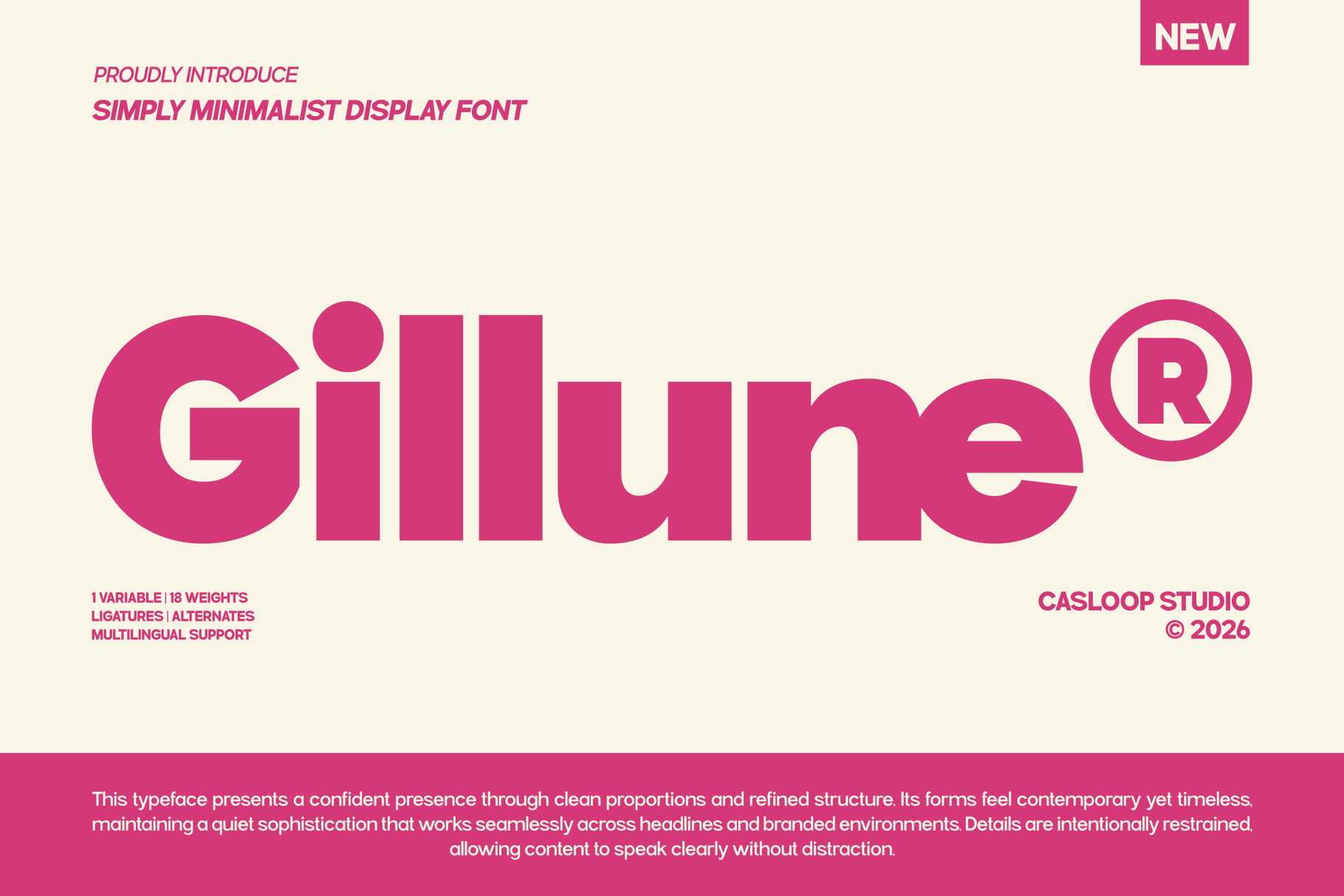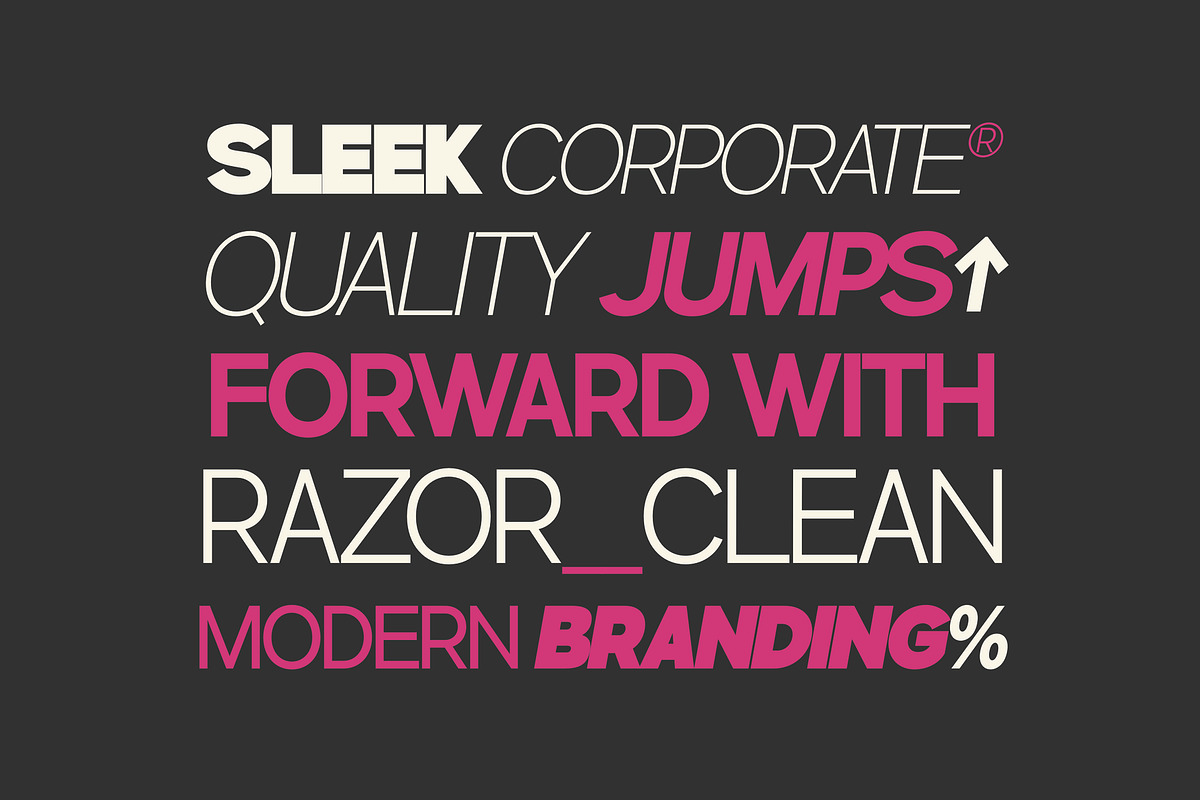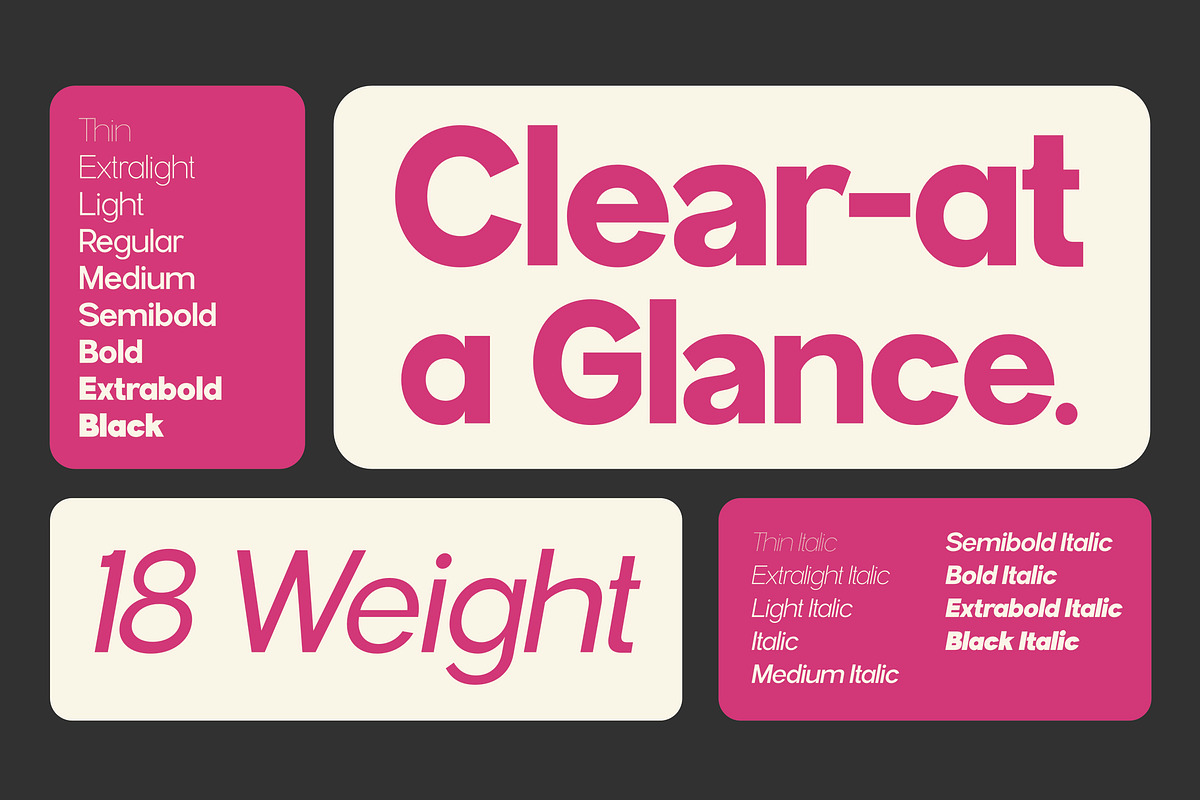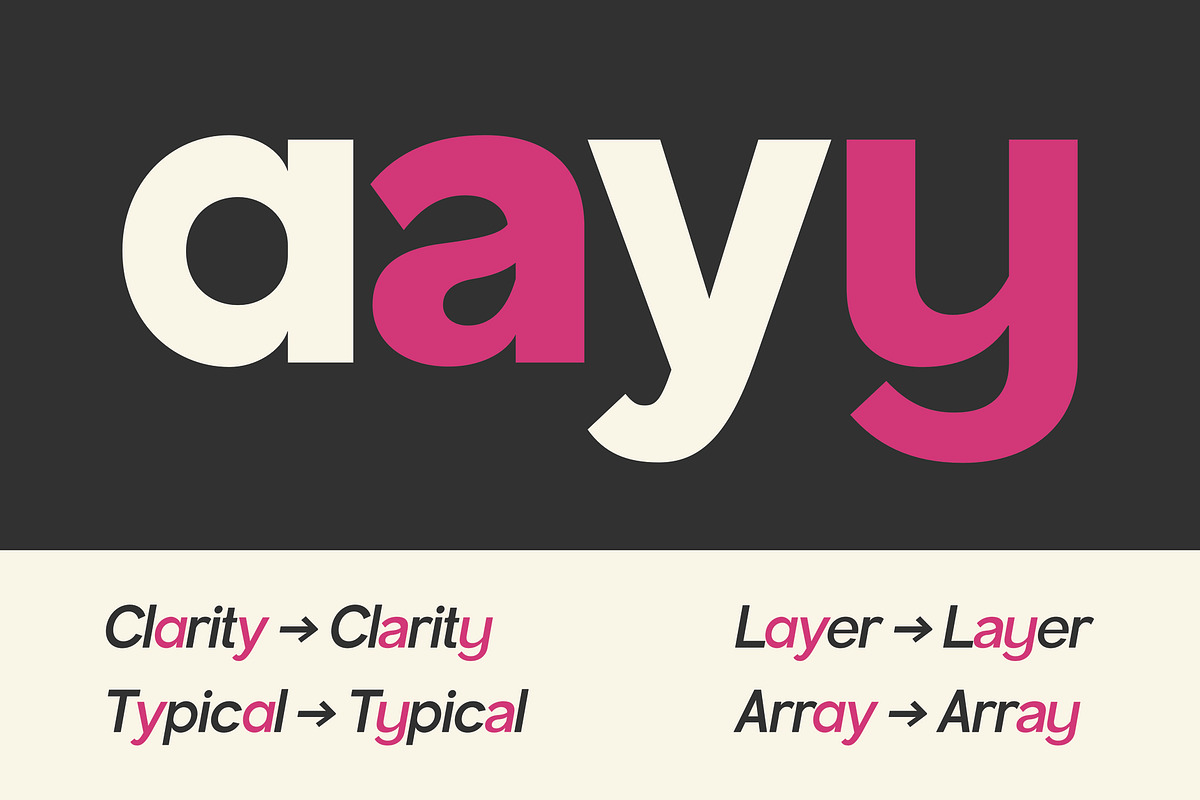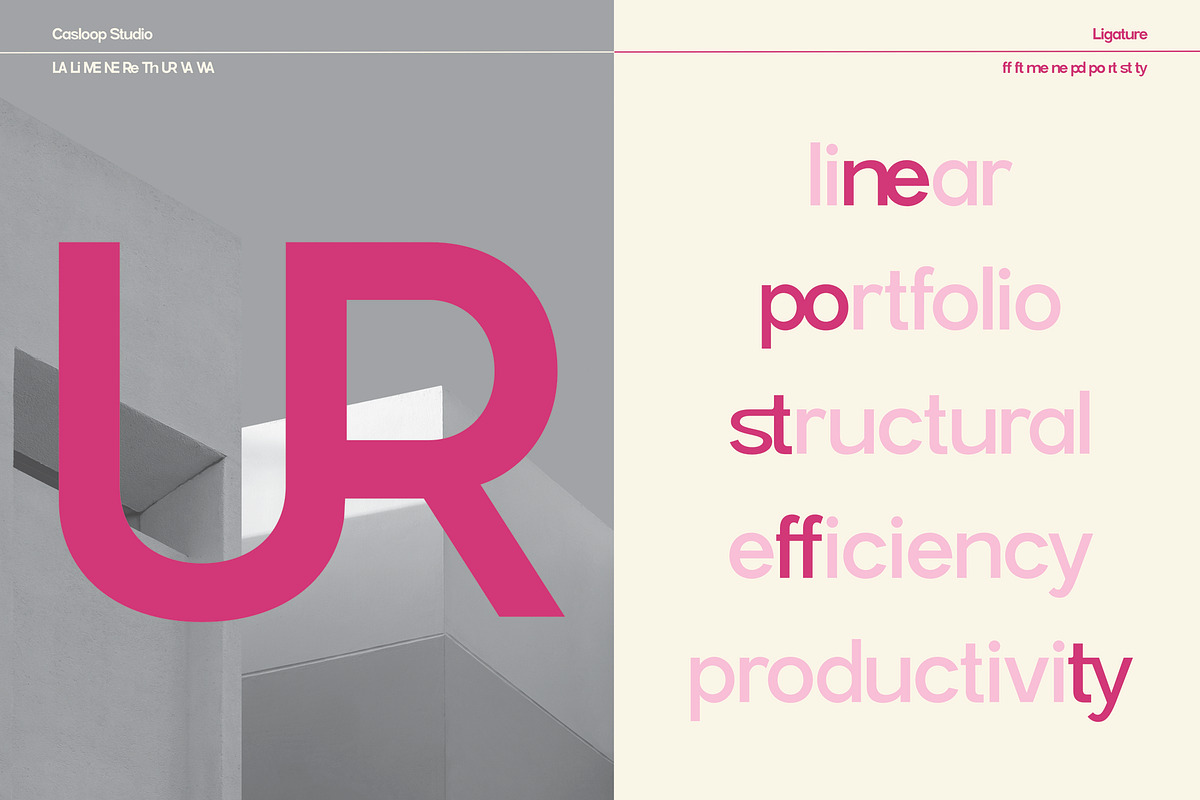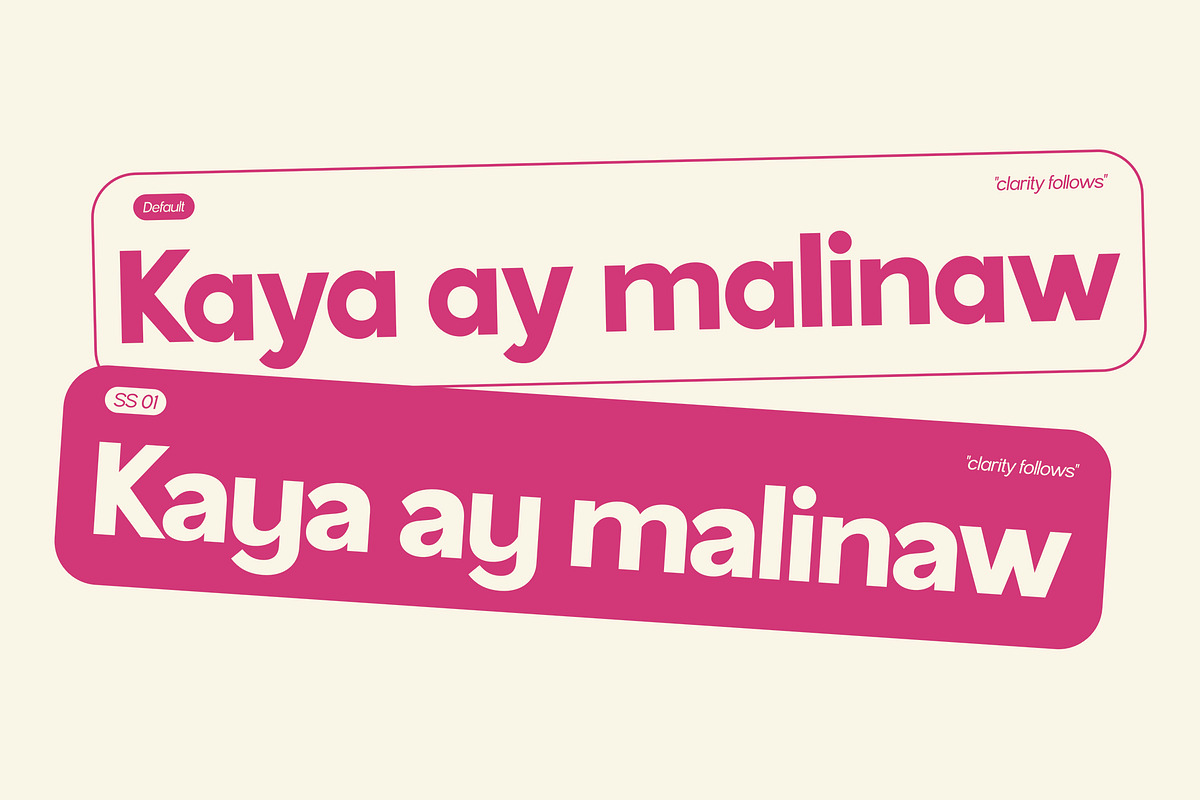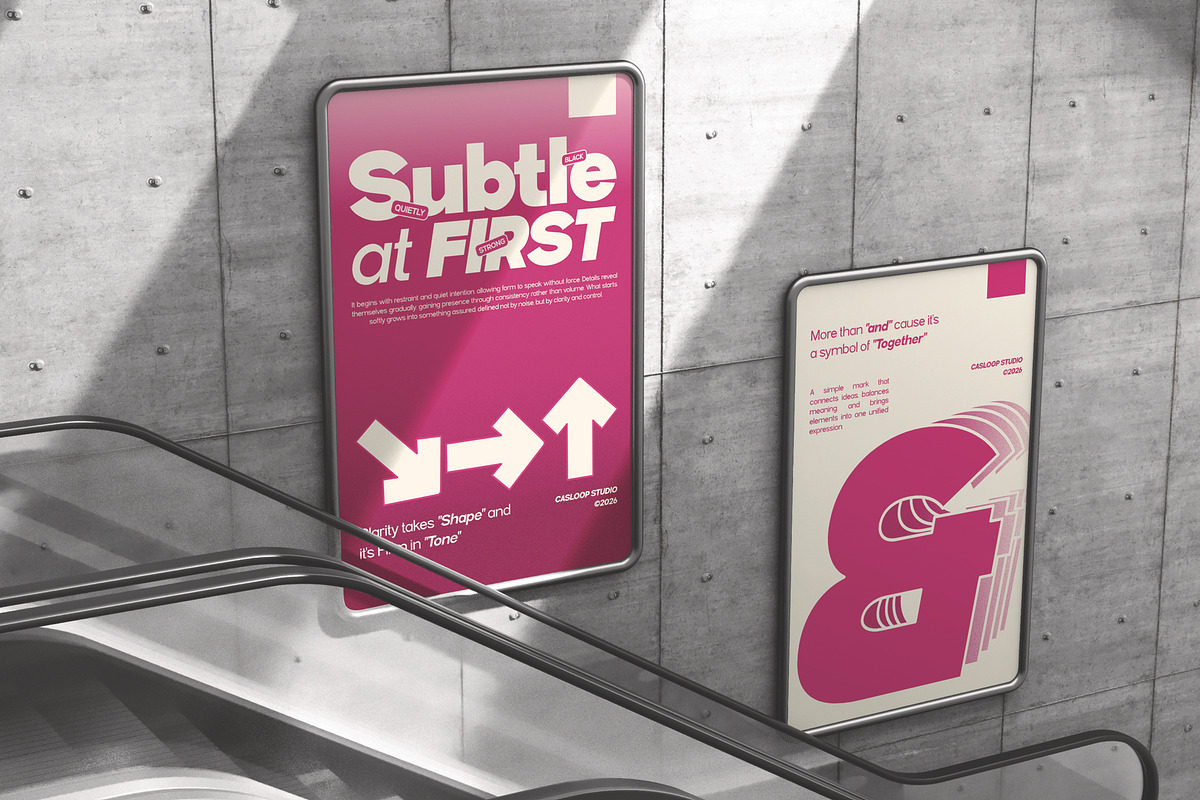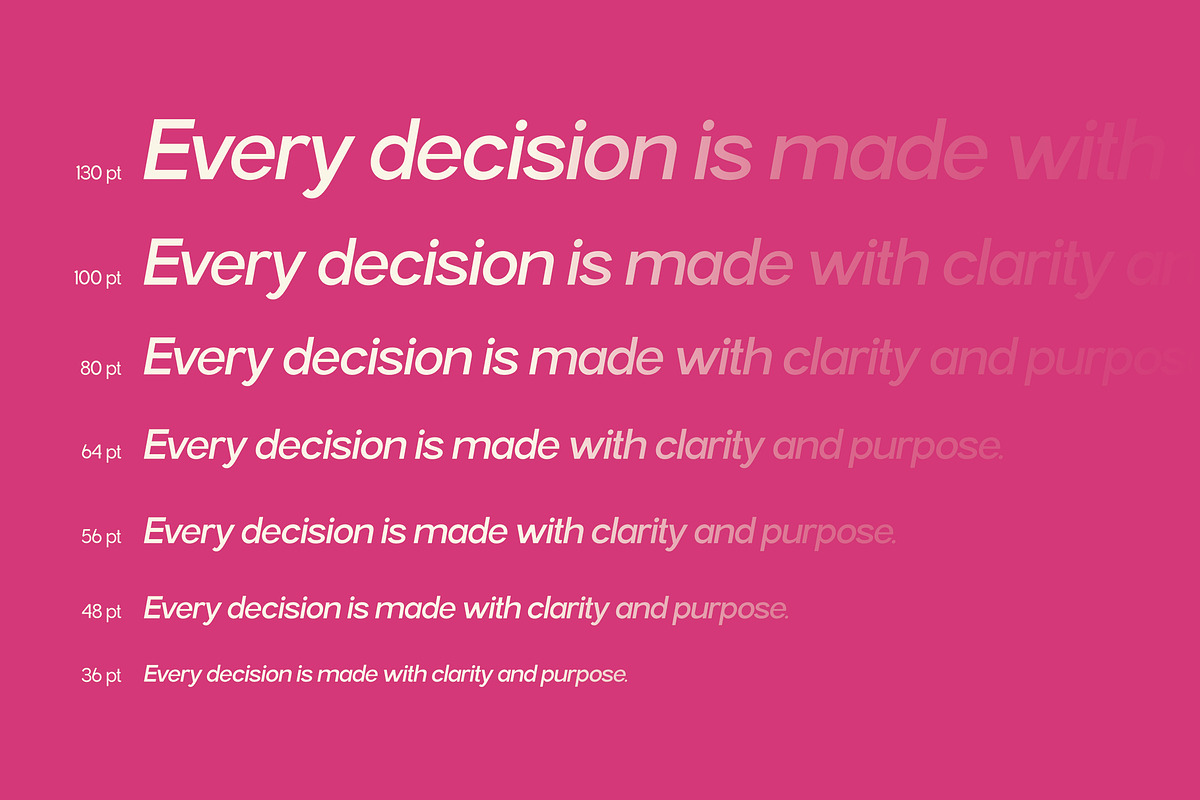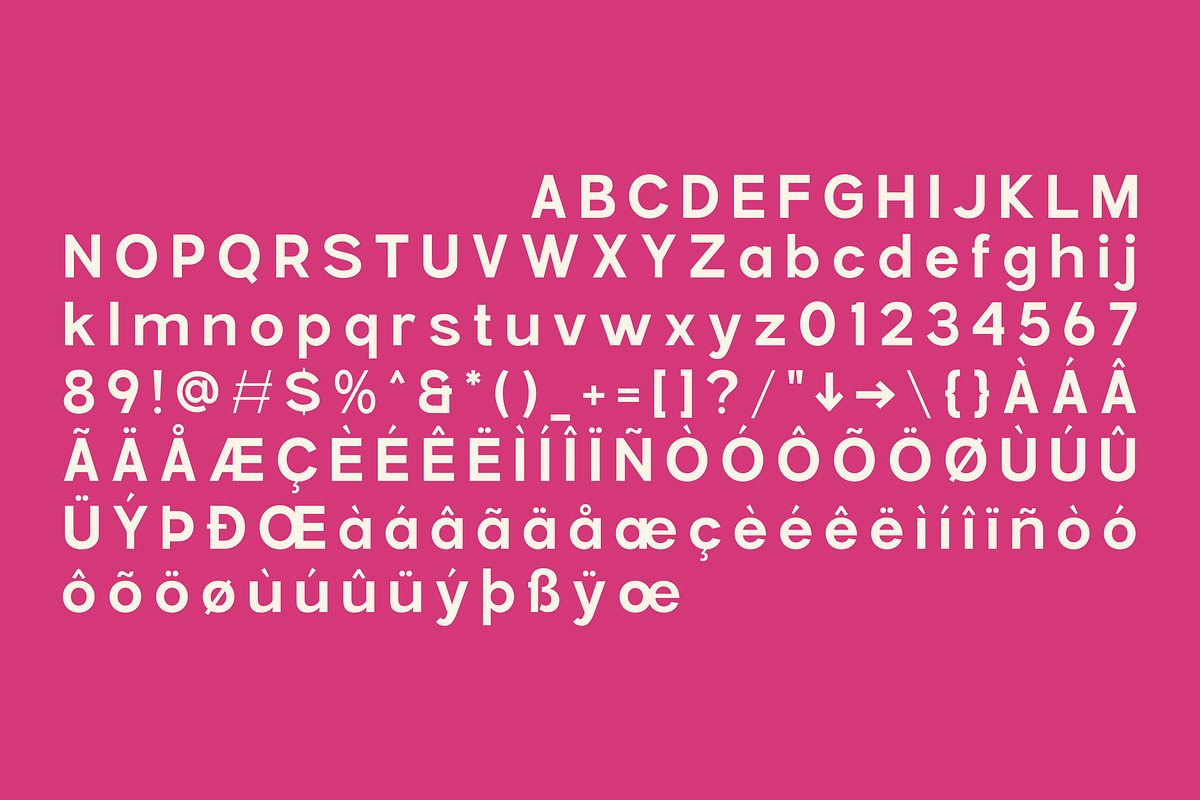
Gillune - Geometric Sans Font
GILLUNE is a minimalist display font designed for modern corporate identities Built on clean geometry and disciplined curves, the style moves seamlessly from subtle style to bold authority, supporting a flexible brand hierarchy without losing consistency. With signature characters such as G, a, y and R defining its visual power and Gillune delivers a smooth, stable and timeless presence for logos, titles, interfaces and long-term branding systems. And recommended pairing with: Inter, IBM Plex Sans, Source Sans 3, Acumin, Source Sans Pro, Neue Haas Grotesk.
- Ligatures & Stylistic Alternates Characters